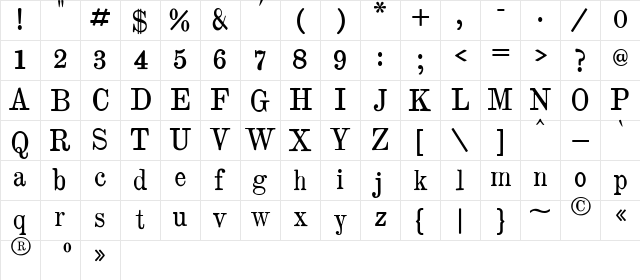
Brokgauz & Efron Regular
| Foundry | Anatole & Alexandra Gophmann |
| Designer | Anatole & Alexandra Gophmann |
Design Context for Brokgauz & Efron Typeface
Brokgauz & Efron is a composed and adaptable typeface that performs quietly and consistently across a wide range of design contexts.